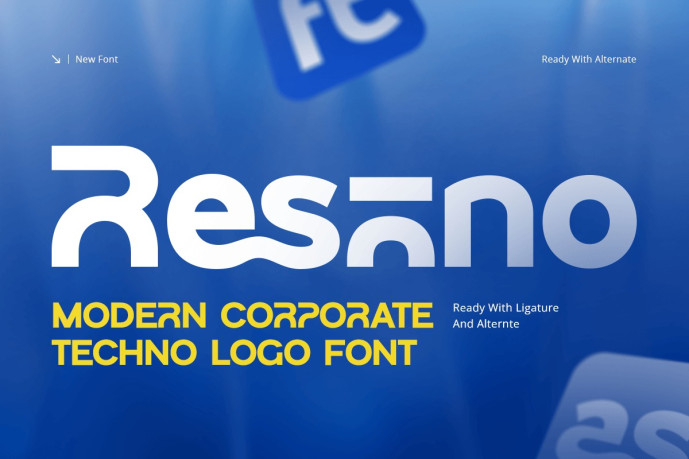
Resano – Modern Corporate Techno Logo Font
Resano – Modern Corporate Techno Logo Font is a contemporary display font designed for corporate branding, technology logos, startup identities, and modern business communication. Inspired by digital innovation, clean geometric design, and professional corporate aesthetics, Resano combines futuristic styling with exceptional readability to create distinctive and memorable brand identities.
Featuring modern geometric letterforms, balanced proportions, and sleek techno-inspired details, Resano delivers a refined visual presence that enhances logos, branding systems, presentations, websites, and marketing materials. Its versatile design provides the perfect balance between professionalism and innovation, making it suitable for businesses looking to establish a modern and trustworthy identity.
Whether you’re launching a technology startup, developing a software brand, creating a corporate logo, or designing a complete visual identity, Resano provides the precision and flexibility needed to build impactful branding across both digital and print media.
Resano Font Features
Character Set: Uppercase, lowercase, numbers, symbols, and punctuation
Modern corporate techno letterforms optimized for logo design and professional branding
OpenType features ready to enhance your design needs
Resano is Perfect For
Corporate branding and business identity systems
Technology startup and software branding
Professional logo and logotype design
Digital products and SaaS branding
Website headers and user interface design
Business presentations and corporate marketing materials
Innovation-focused companies and creative agencies
Contemporary display typography
Whether you’re creating a corporate logo, developing a technology brand, launching a startup identity, or building a professional digital presence, Resano delivers the innovation, clarity, and sophistication of a modern corporate techno logo font designed for today’s forward-thinking brands.